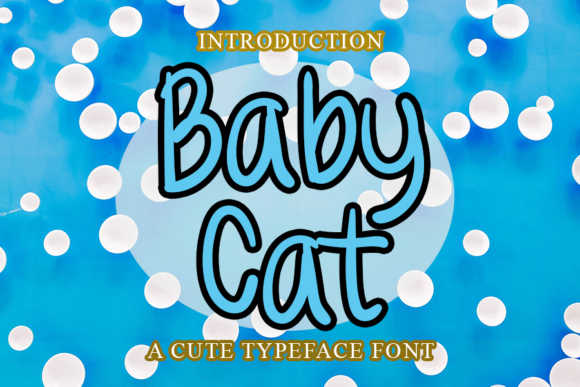
The Purr-fect Font: Discovering Baby Cat Font
As a designer, have you ever found yourself staring at a blank page, trying to bring a project to life? The spark of creativity can strike at any moment, and for me, it happened while browsing through a collection of fonts. I stumbled upon the Baby Cat Font, and its unique, handwritten charm instantly captured my attention. This stunning Sans Serif font is more than just a pretty face – it’s a tool that can elevate your designs and make them truly special.
The Baby Cat Font is perfect for adding a personal touch to a variety of projects, from wedding invitations to greeting cards. Its playful style is sure to win hearts and make your designs stand out from the crowd. As a designer, you’ll appreciate the versatility and value that this font brings to your work, making it a must-have addition to your toolkit.
- Unique Characteristics: Baby Cat Font features a playful, cursive design with rounded edges and a soft, childlike feel, making it ideal for creating a whimsical and friendly atmosphere in designs.
Baby Cat Font Review
I recently had the chance to work with the Baby Cat Font, and I must say, it’s a unique addition to any design project. ✨ One of the things that works well is the cutesy, playful vibe it brings to the table. It’s perfect for projects that require a lighthearted, childlike feel. The font is also highly customizable, allowing designers to adjust the size, color, and style to fit their specific needs.
Another strength of the Baby Cat Font is its versatility. It can be used for a wide range of applications, from logos and branding to social media graphics and children’s book illustrations. ✨ The font is also highly legible, making it easy to read even at small sizes.
While the Baby Cat Font is a great addition to any design project, there are some limitations to be aware of. ⚠️ One of the main drawbacks is the font’s lack of sophistication. It may not be the best choice for projects that require a more professional or formal tone. Additionally, the font’s cutesy nature may not appeal to all audiences, particularly those who prefer a more serious or mature aesthetic.
Overall, I would recommend the Baby Cat Font for designers who are looking for a fun, playful addition to their project. While it may not be the best choice for every project, it’s a great option for those who want to add a touch of whimsy and personality to their design.
- Perfect for lighthearted, childlike projects
- Highly legible
- Versatile and can be used for a wide range of applications